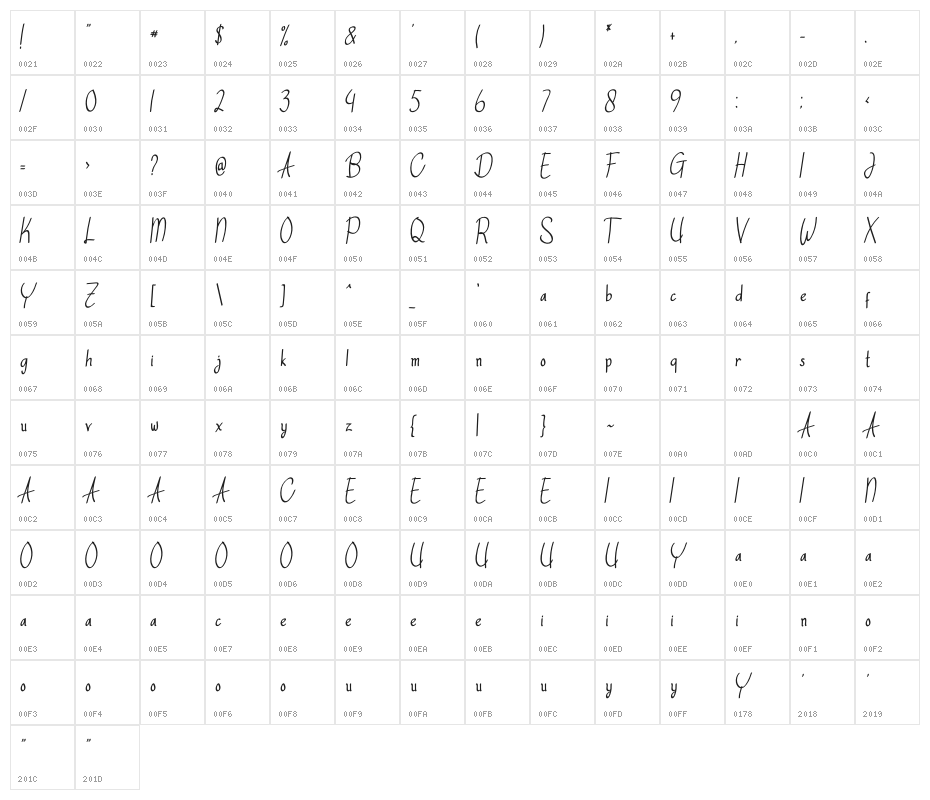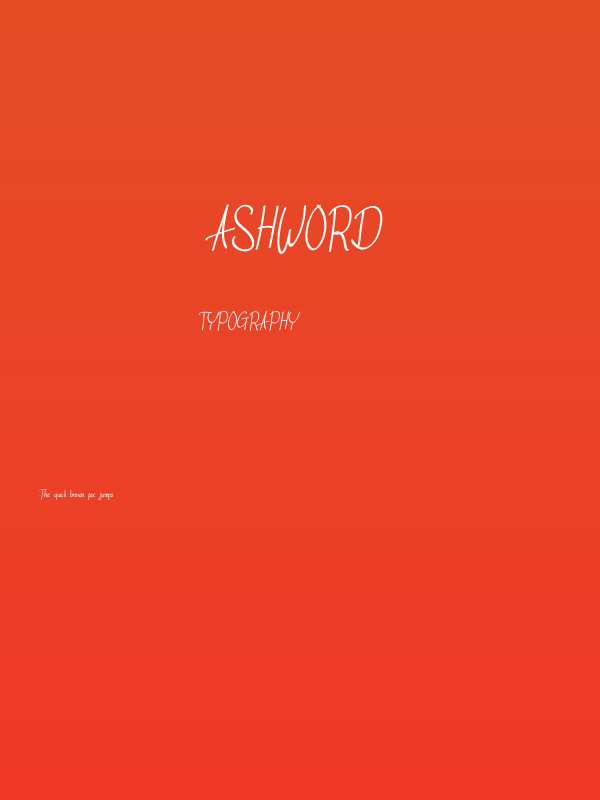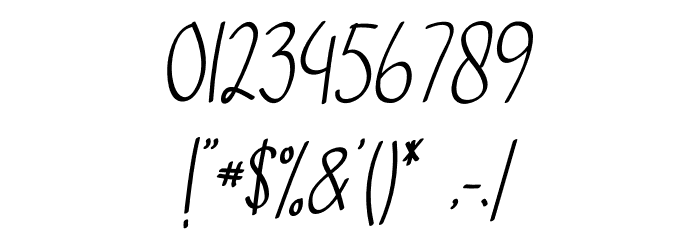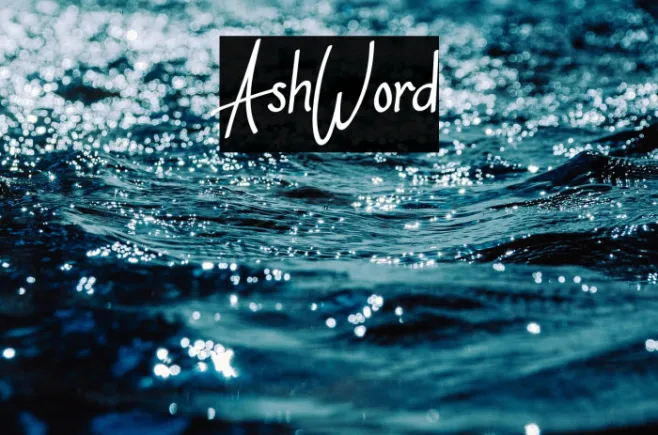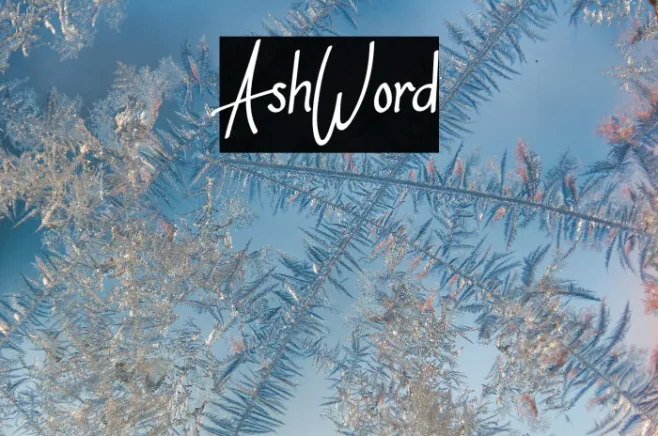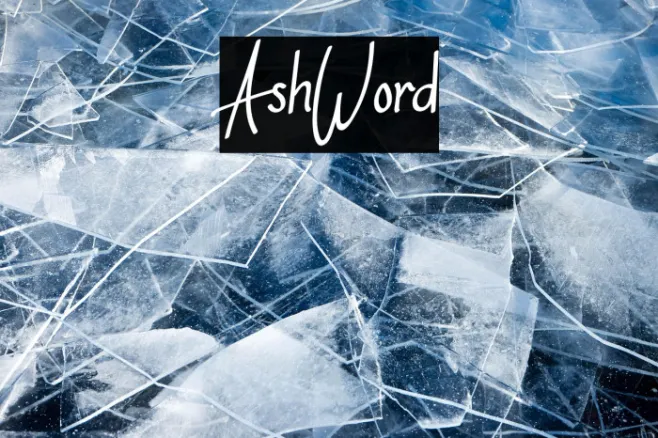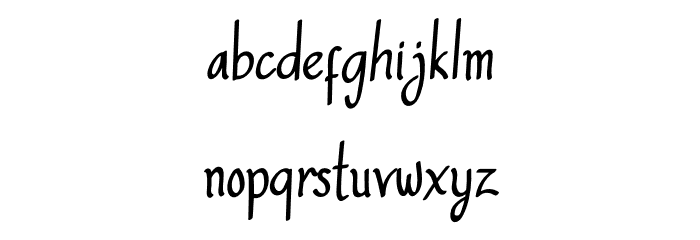
AshWord Font
AshWord Description
This font features a playful and whimsical style with a handwritten appearance. The letters are elongated and slightly slanted, giving a sense of movement and fluidity. The uppercase characters are tall and narrow, while the lowercase letters maintain a consistent height, creating a harmonious balance. The numerals are distinct and easy to read, matching the overall playful theme. Special characters are creatively designed, adding to the font's unique charm. The strokes are smooth and consistent, with a medium contrast that enhances readability.